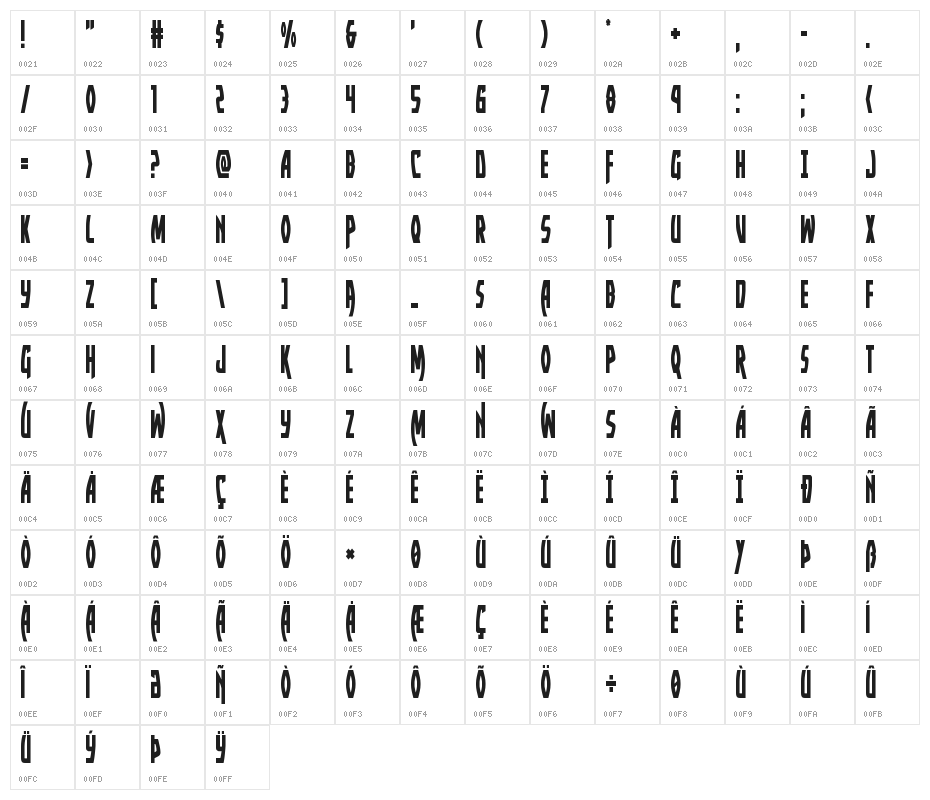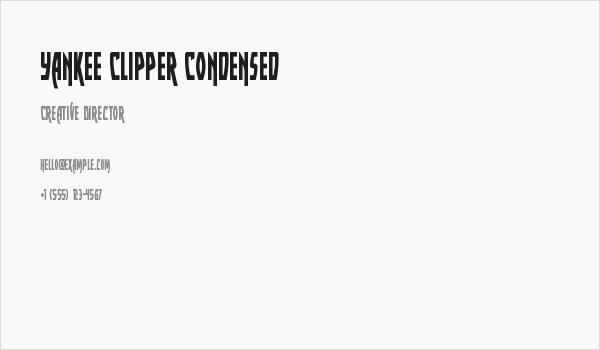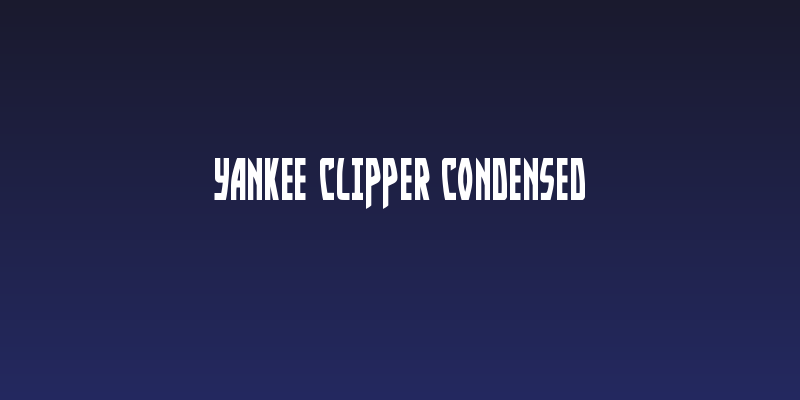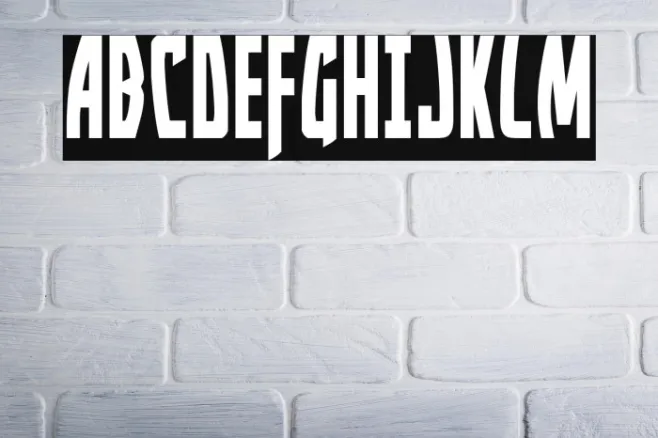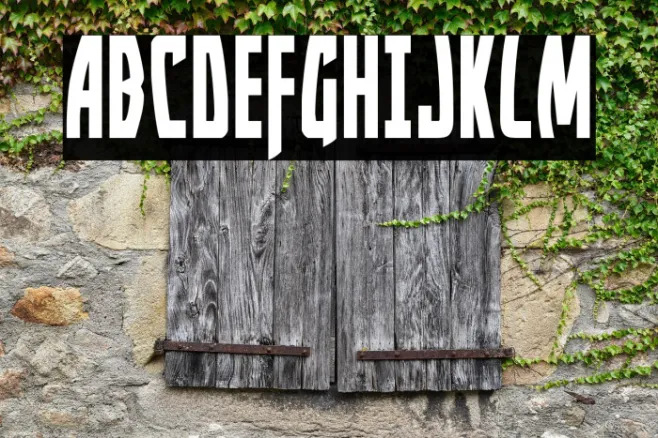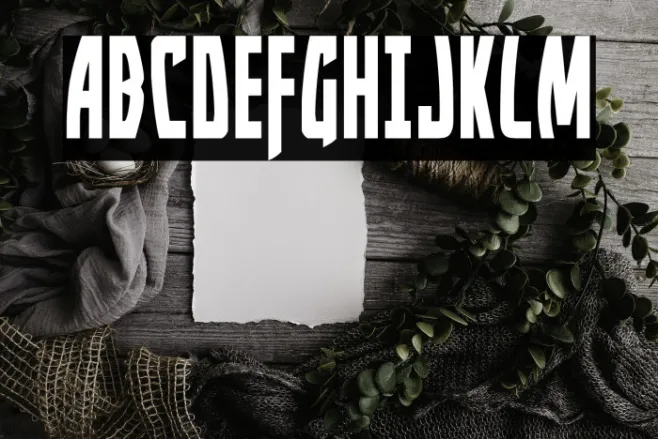
Yankee Clipper Condensed Font
Yankee Clipper Condensed Description
This font features a bold and condensed style with a strong presence. The uppercase letters are tall and narrow, giving a sense of height and impact. The lowercase letters maintain the condensed form, ensuring consistency across the typeface. The numerals are similarly styled, with a uniform height that matches the uppercase letters. Special characters are designed to complement the overall aesthetic, maintaining the bold and condensed appearance. The font's sharp angles and clean lines contribute to its modern and assertive look, making it suitable for attention-grabbing designs.
| Proposed Projects | Ideal for posters, headlines, and branding materials that require a strong visual impact. |